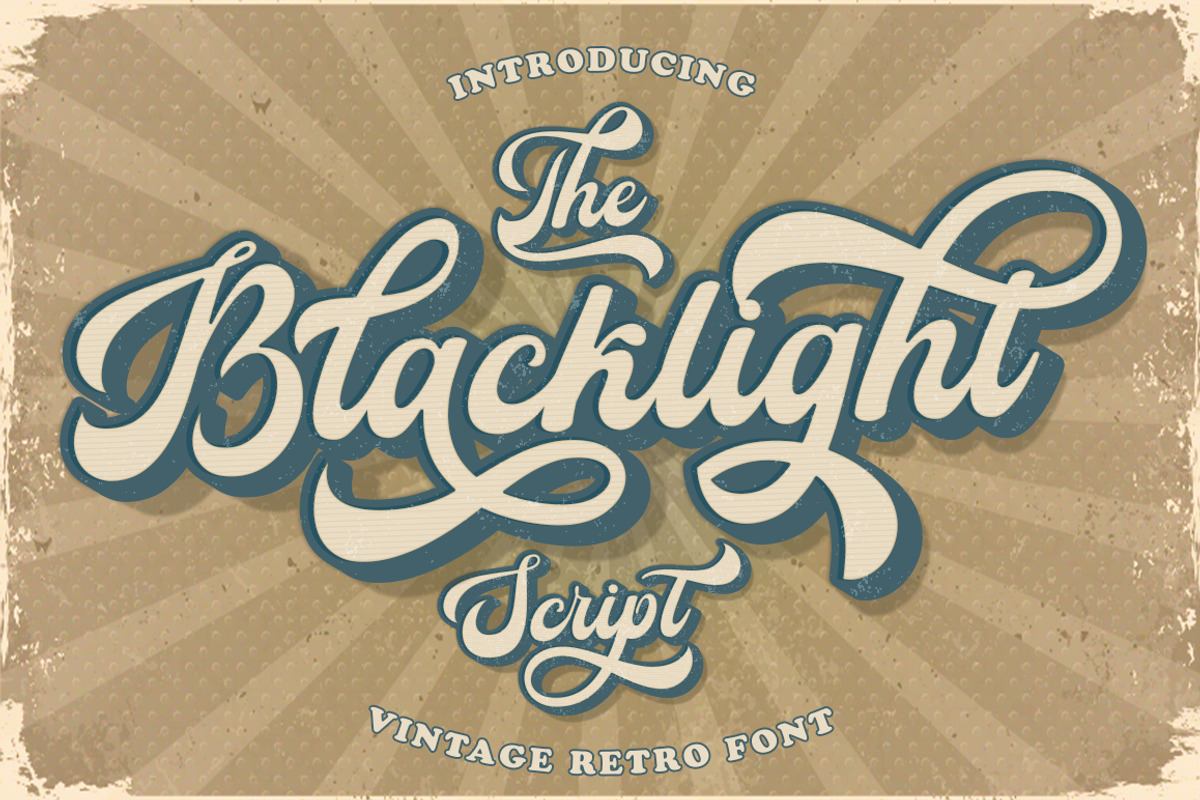
Please note that you must purchase this font for commercial use. You can download Blacklight Script Font for free, strictly for personal testing purposes only. Blacklight Script is a bold, stylish script font with a modern brush-lettered look that blends energy and elegance. With its smooth curves, dynamic strokes, and hand-painted feel, Blacklight Script Font Free Download is perfect for branding, logos, apparel, album covers, social media graphics, posters, and packaging that demand attention and personality.
This font captures the spontaneous, expressive vibe of brush calligraphy, making it ideal for creative projects that need a bold, personal touch. It includes uppercase and lowercase letters, numerals, punctuation, and multilingual support, and may also feature alternates or ligatures for added customization.
Whether you're designing edgy merch or vibrant digital content, Blacklight Script brings flair, attitude, and style to your typography.